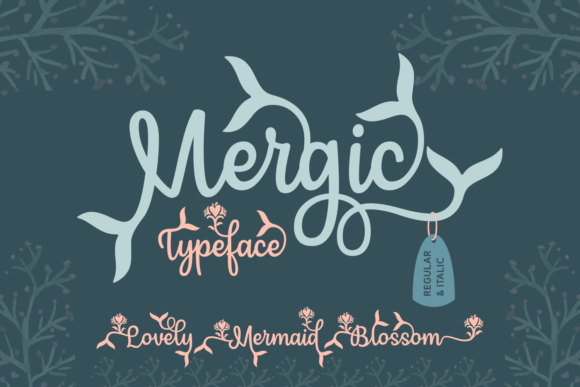
Mergic Font
Dive into the enchanting realm of Mergic Font, a treasure of fluid artistry and whimsical charm. With its captivating Regular and Italic versions, Mergic invites you to spin a world of playful designs, limited only by your imagination.
Mergic is the brainchild of Situjuh, a font foundry known for its remarkable creations. This spirited script typeface pulsates with life, reminiscent of a balletic dance beneath the moonlit sea. Its graceful strokes and swirling curves capture the essence of a mermaid's tale, beckoning you to weave narratives of adventure, love, and magic.
Every character in Mergic is a work of art in its own right, exuding a standalone allure that entices you to experiment with letterforms and explore the boundaries of creativity. Each stroke and swirl is meticulously crafted to evoke a sense of wonder, drawing the beholder's eye and leaving an indelible mark on their soul.
Whether you're a seasoned designer seeking to elevate your projects or a novice exploring the world of typography, Mergic is your steadfast companion. Its versatility transcends mediums, from digital designs to print creations. Let Mergic's allure captivate audiences, leaving them spellbound by your design prowess.
With Mergic, you hold the key to a world of boundless expression. Transform your designs into enchanting stories, captivating presentations, and heartfelt messages that resonate with your audience. Its enchanting aura will elevate your projects, making them shine brighter than a constellation on a cloudless night.
Step into the realm of Mergic Font, where beauty and creativity intertwine in perfect harmony. Let your imagination run wild as you craft designs that evoke emotions, inspire dreams, and leave an everlasting impression. Mergic is more than just a font; it's an artistic journey that awaits your exploration. Embrace its charm, unleash your creativity, and let Mergic's magic transform your world of design.